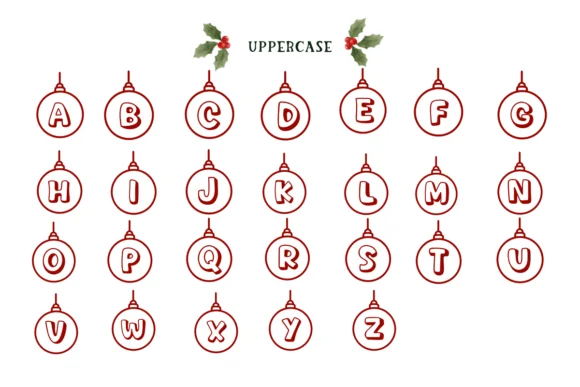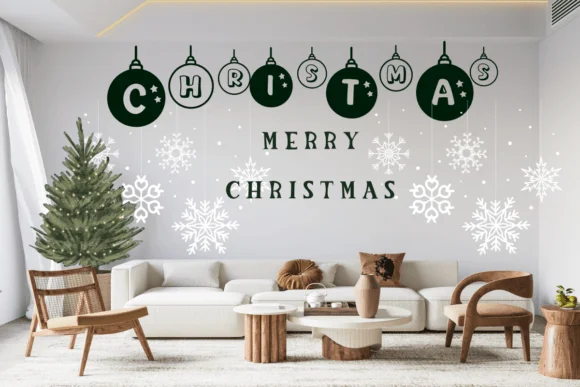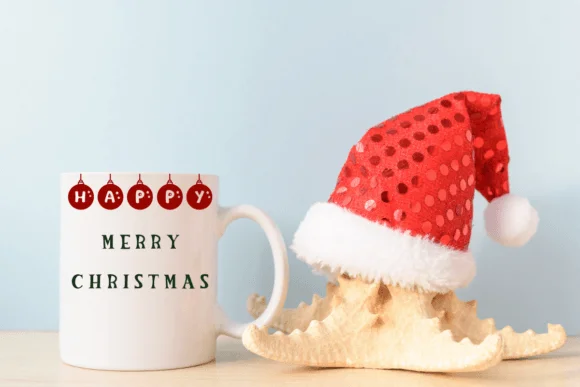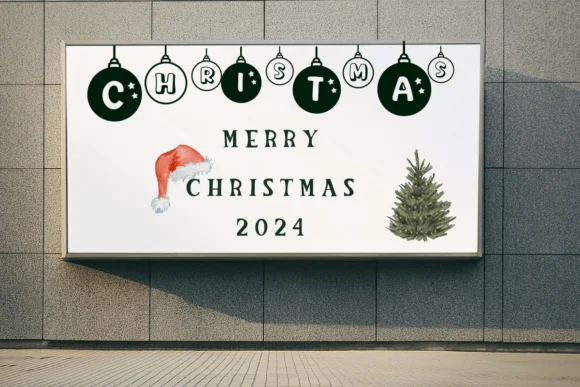
Christmas Ball Font
This spherical font is perfect for Christmas ornament displays, holiday decoration stores, Christmas tree farm advertisements, ornament collection catalogs, festive bauble packaging, Christmas market decorations, ornament craft projects, holiday tree decorating guides, Christmas ball manufacturing, and decorative seasonal merchandise.
Christmas Ball Font is exciting because it captures the perfect spherical beauty and reflective charm of individual Christmas ornaments through its rounded, bulbous letterforms that mirror the classic shape of a single treasured Christmas ball hanging gracefully on a tree branch. The font features circular-inspired characters with curved surfaces and lustrous details that evoke the gentle sway and sparkling reflection of a solitary ornament catching light from twinkling Christmas tree lights. Each letter showcases the delicate balance and elegant simplicity of a single Christmas ball, incorporating subtle highlight effects and smooth curves that create the illusion of three-dimensional spheres floating in space. The design celebrates the individual beauty of each ornament while maintaining the collective harmony that makes Christmas tree decorating such a cherished family tradition and artistic expression.
The Christmas Ball Font family includes spherical style variations: Regular, Bold, Light, Shiny, and Matte versions. The collection features special ornament elements including sphere accents, cap details, hanging hooks, and reflective surfaces. Additional components include ornament borders, bauble frames, decorative garlands, and festive ornament clusters that enhance the font's Christmas ball appeal and create cohesive holiday decoration themes.
Ornament retailers and decoration specialists will find Christmas Ball Font to be an exceptional choice for creating focused holiday communications that celebrate the individual beauty and collective impact of Christmas ornaments. This precisely crafted font transforms ordinary decoration text into elegant displays that resonate with customers who appreciate the artistry and tradition of Christmas tree decorating.
The typeface includes comprehensive character support with spherical styling that maintains excellent readability while conveying the elegant simplicity and decorative charm of Christmas balls. The font's rounded design ensures appealing results across both retail applications and personal decoration projects.
Perfect for ornament shops, decoration retailers, Christmas tree farms, and holiday decorating services, this font delivers polished visual impact that communicates elegance, tradition, and the timeless beauty of Christmas balls that transform ordinary evergreen trees into magnificent symbols of Christmas celebration and family tradition.